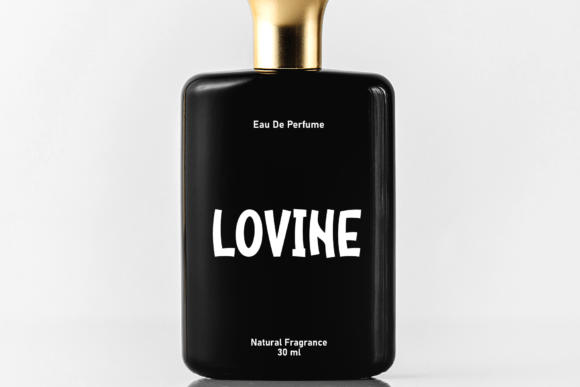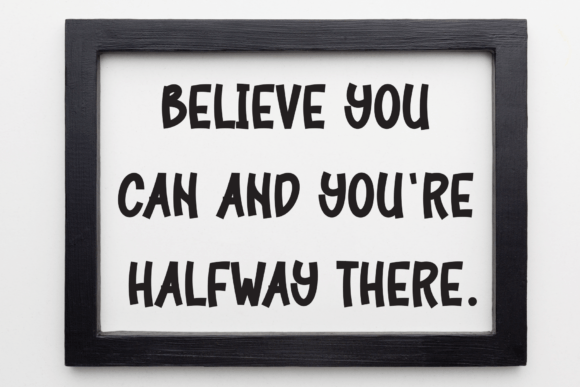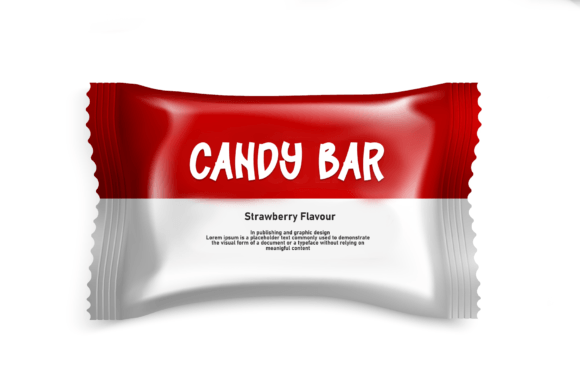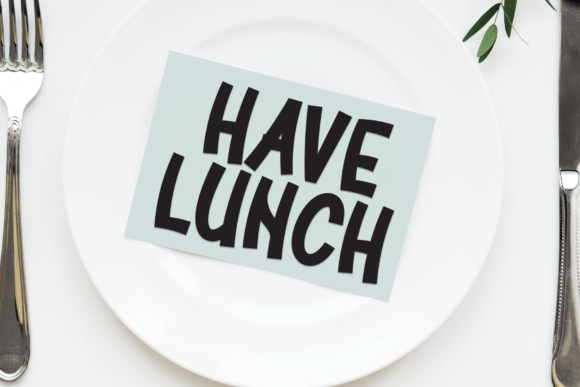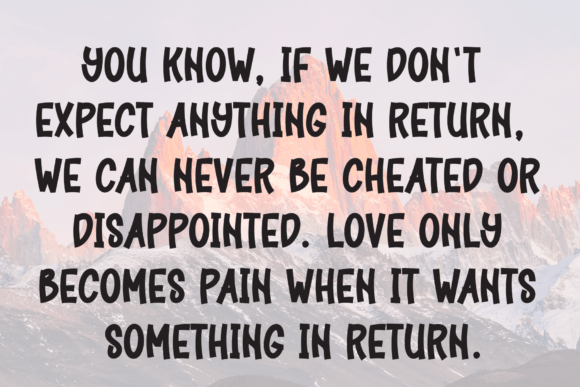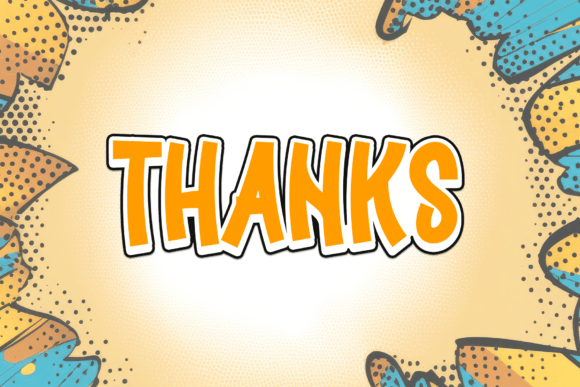
Introducing Comic Cartoon Font: The Ultimate Choice for Designers and Crafters
Are you a designer or crafter looking for a font that can add a touch of sweetness and friendliness to your projects? Look no further than the Comic Cartoon Font! This delightful handwritten font is perfect for a wide range of designs, from playful posters and fun party invitations to charming crafts and engaging digital content.
The Charm of Comic Cartoon Font
Comic Cartoon Font is a sweet and friendly handwritten font that boasts a natural and unique style. Its distinctive charm makes it incredibly fitting for a large pool of designs, allowing your creativity to shine without limits. The only boundary is your imagination! Whether you’re working on a whimsical children’s book, a vibrant advertising campaign, or a heartfelt greeting card, this font is sure to bring your ideas to life.
Key Features of Comic Cartoon Font
- Handwritten Style: Comic Cartoon Font features a genuine handwritten look that adds a personal touch to any project.
- Natural and Unique: Its natural flow and unique style ensure that your designs stand out from the crowd.
- Versatile: Perfect for a wide range of applications, including posters, invitations, crafts, digital content, and more.
- Easy to Read: Despite its playful nature, the font remains clear and easy to read, making it suitable for both headlines and body text.
Uses of Comic Cartoon Font
The versatility of Comic Cartoon Font makes it an excellent choice for various projects. Here are some ideas to get you started:
- Children’s Books and Educational Materials: Add a playful and engaging touch to storybooks, activity sheets, and learning materials.
- Party Invitations and Decorations: Create fun and colorful invitations, banners, and party decorations that set the tone for a memorable celebration.
- Digital Content: Use the font in blog posts, social media graphics, and video scripts to add a friendly and approachable tone.
- Crafts and DIY Projects: Perfect for handmade cards, scrapbooking, and other craft projects that require a personal touch.
- Advertising and Marketing: Add a playful and creative edge to advertising campaigns, flyers, and brochures.
Tips for Using Comic Cartoon Font
To make the most of Comic Cartoon Font, consider the following tips:
- Mix and Match: Combine the font with other complementary fonts to create visual interest and hierarchy.
- Play with Colors: Experiment with bright and pastel colors to enhance the playful nature of the font.
- Add Graphics: Pair the font with fun and whimsical graphics to create engaging and dynamic designs.
- Keep it Simple: Don’t overcrowd your design – let the font’s natural charm shine through with a clean and simple layout.
Comic Cartoon Font is a delightful and versatile handwritten font that’s perfect for designers and crafters looking to add a touch of sweetness and friendliness to their projects. With its natural and unique style, this font is sure to inspire your creativity and bring your ideas to life. So why wait? Download Comic Cartoon Font today and let your imagination run wild!